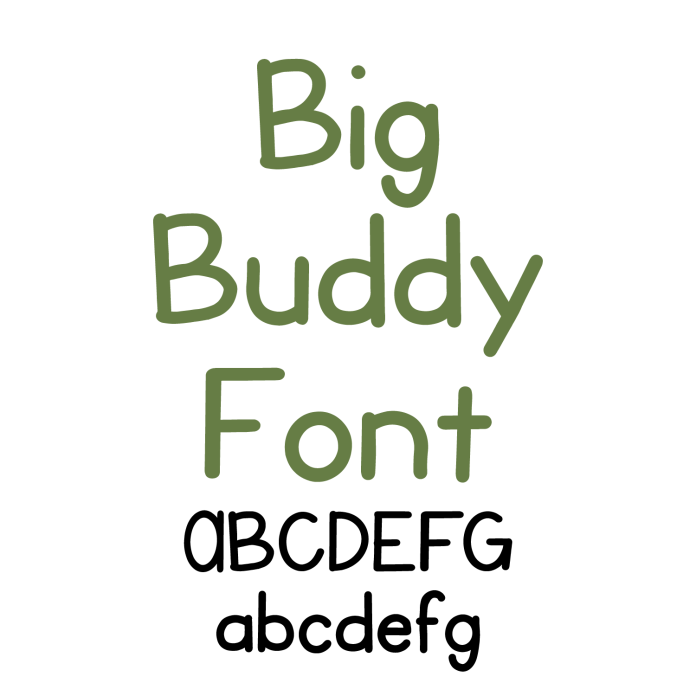
Say hello to Big Buddy Font – a bold and friendly rounded sans serif font designed to bring a cheerful, modern touch to your creative projects! With smooth curves and thick letterforms, Big Buddy is perfect for kids’ crafts, classroom decor, posters, labels, greeting cards, t-shirts, and stickers. Its clean, easy-to-read style makes it ideal for both fun and functional designs. Whether you're working with vinyl, HTV, cardstock, or printable materials, Big Buddy cuts beautifully for polished results every time. Add personality and playfulness to your next project with this versatile font. Download Big Buddy and start creating today!